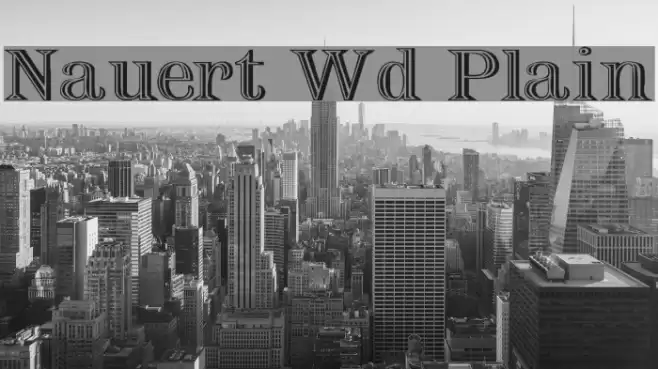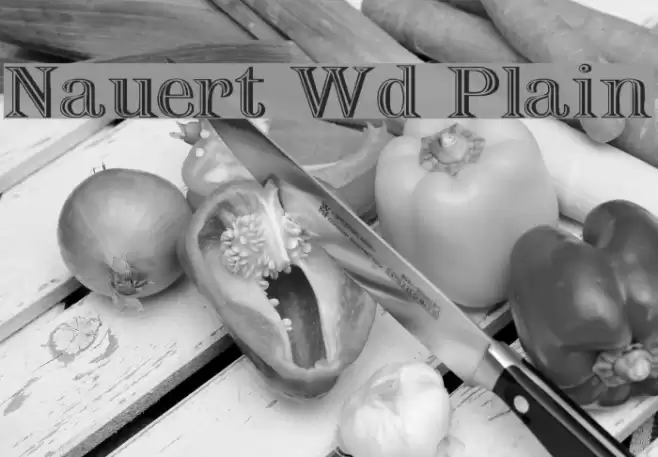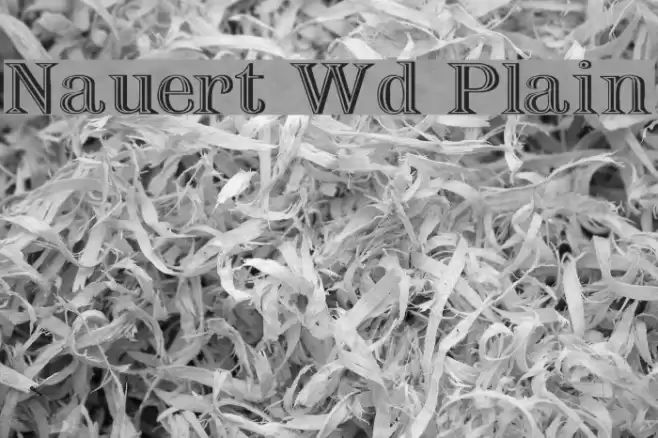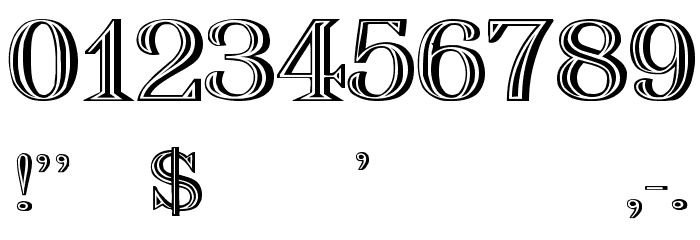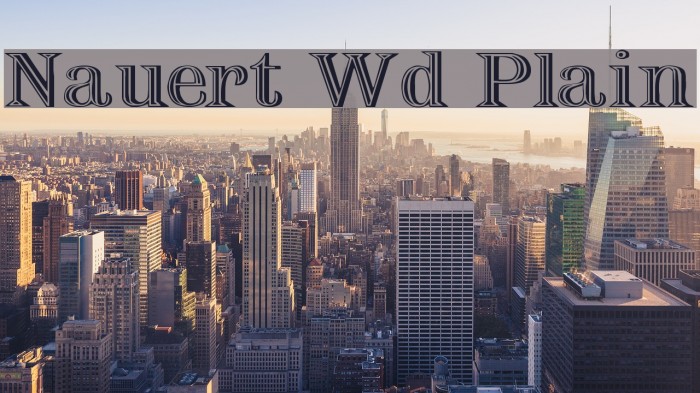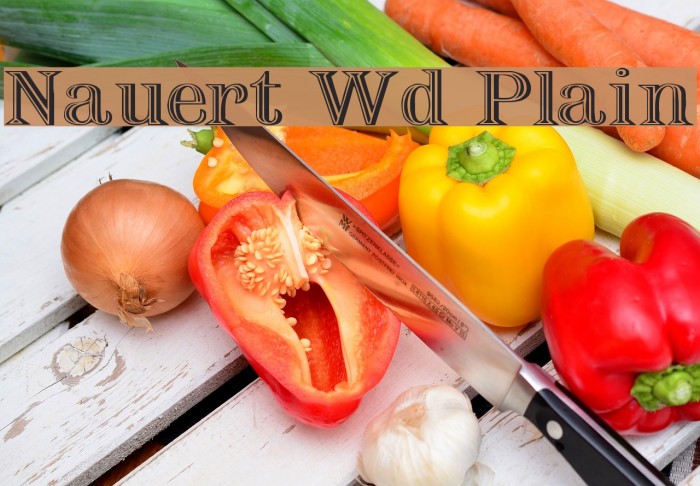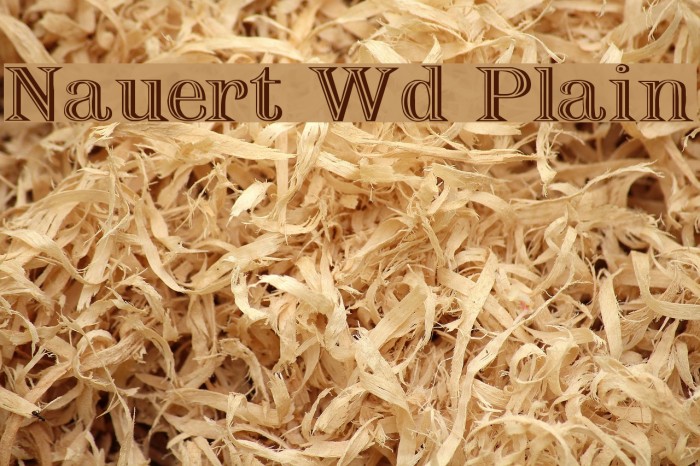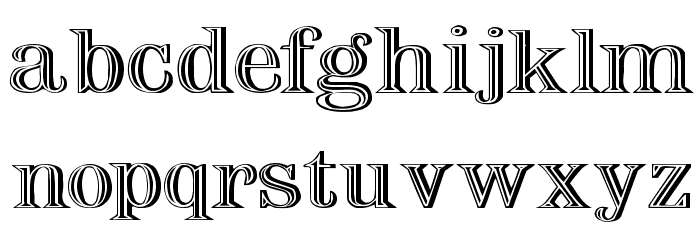
Nauert Wd Plain Font
Nauert Wd Plain Description
This font features a bold and decorative style with a distinct outline that adds depth and dimension to each character. The uppercase letters are strong and commanding, while the lowercase letters maintain a consistent style with slightly softer edges. The numerals are equally bold, ensuring they stand out in any design. Special characters are designed with the same attention to detail, making them suitable for a variety of uses. The overall design is reminiscent of vintage signage, offering a classic yet eye-catching appearance.
A bold, decorative font with outlined characters and a vintage flair from Retro fonts.
- Proposed Projects: Ideal for vintage-themed posters, signage, branding, and headlines that require a strong visual impact.
- Overall Style: Vintage